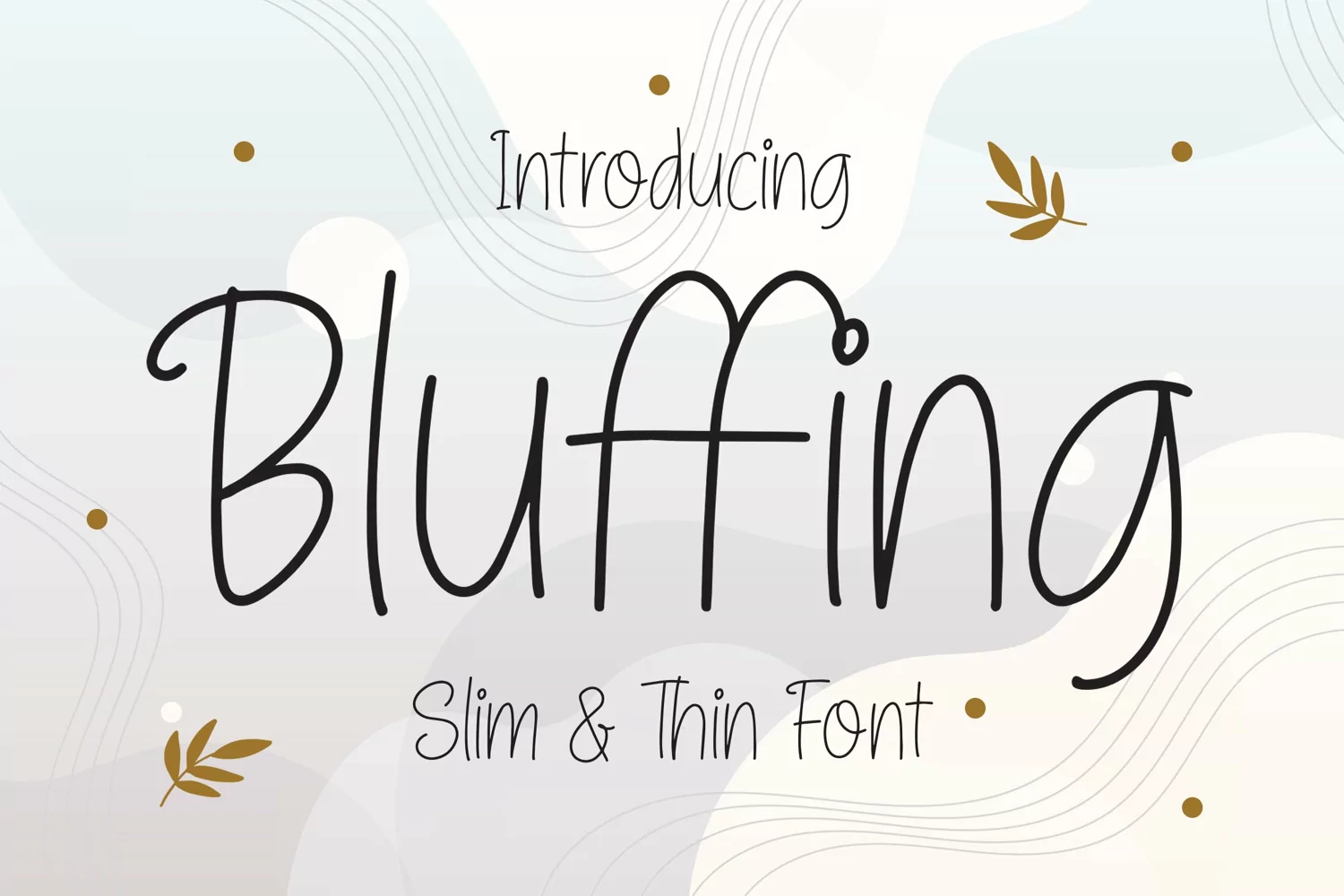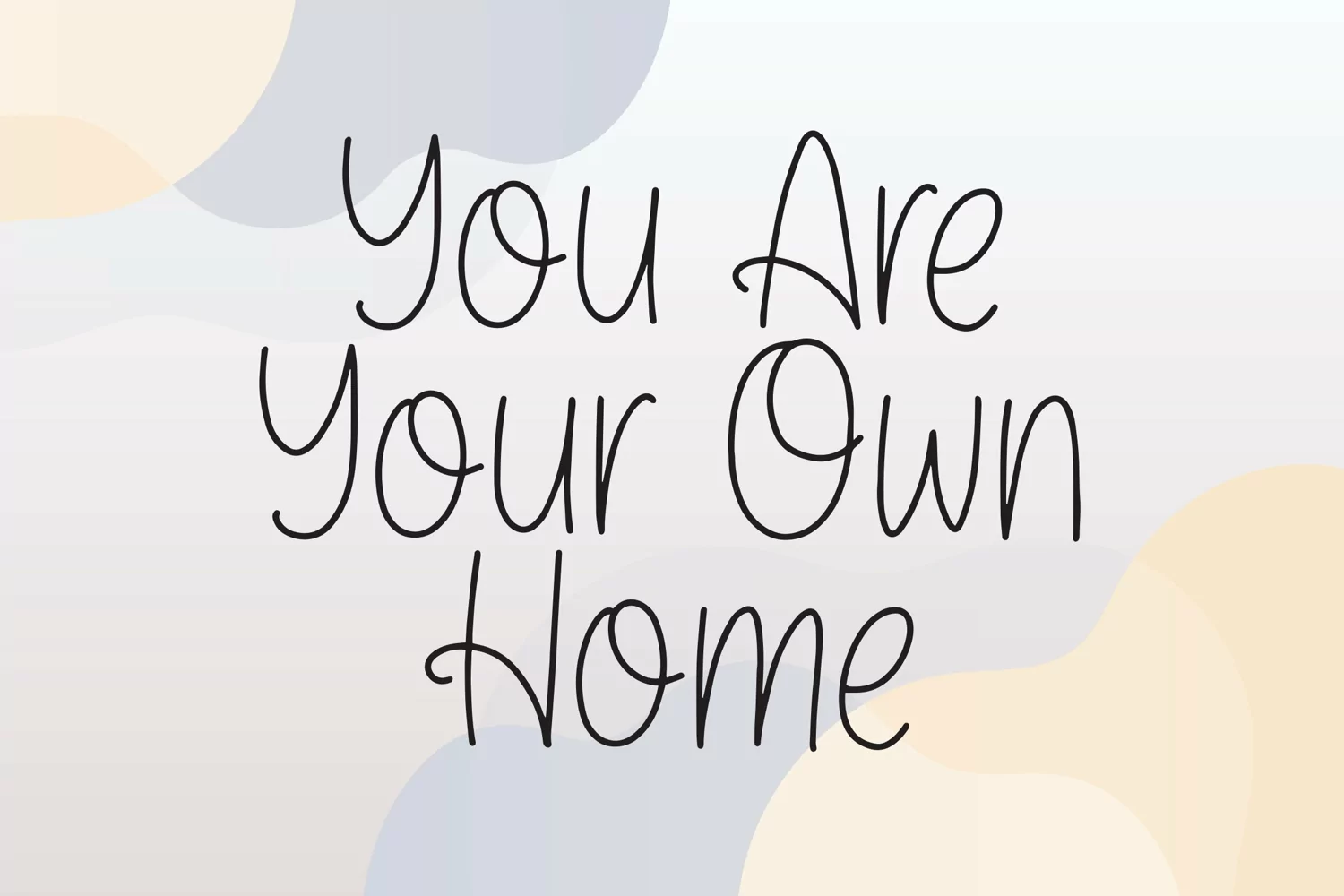
Bluffing - Slim & Thin Font that contain lowercase, uppercase, symbol, and also support multi language. There’s a lot ligatures in this font. This Font also comes with ligatures, alternates and many more. this font suitable for fashion, branding, catalog and other design what you want.
Bluffing